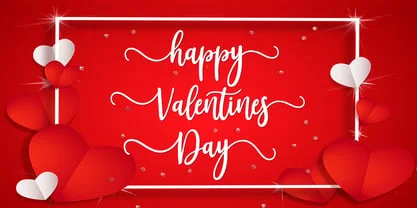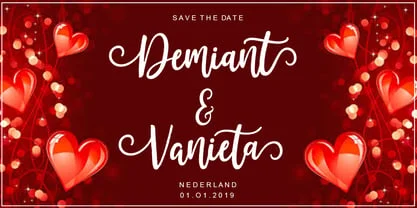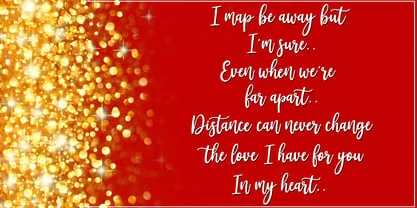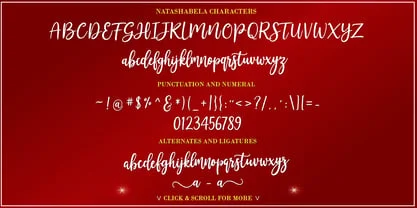
Natashabela Font
This elegant font is perfect for luxury wedding invitations, high-end fashion branding, sophisticated beauty campaigns, premium cosmetic packaging, upscale restaurant menus, elegant boutique signage, refined jewelry marketing, exclusive event announcements, luxury lifestyle publications, and distinguished corporate branding materials.
Natashabela Font is exciting because it embodies feminine sophistication and timeless elegance through its gracefully crafted letterforms that exude luxury and refinement. The font features beautifully balanced characters with flowing curves and delicate details that create an aura of exclusivity and high-end appeal. Each letter showcases subtle artistic flourishes and refined proportions that reflect the essence of European elegance and contemporary fashion sensibilities. The typeface's distinctive personality combines classical beauty with modern sophistication, making it perfect for brands and projects that require an air of prestige and feminine grace. Its versatile design works seamlessly across various luxury applications while maintaining consistent elegance and readability.
The Natashabela Font family includes sophisticated style variations: Regular, Bold, Light, Italic, and Condensed versions. The collection features special decorative elements including elegant swashes, ornamental flourishes, stylistic alternates, and refined ligatures. Additional components include luxury borders, decorative frames, sophisticated ornaments, and elegant accent marks that enhance the font's premium aesthetic and create cohesive high-end design systems.
Designers working on luxury projects will find Natashabela Font to be an invaluable asset for creating distinguished communications that convey prestige and sophistication. This meticulously crafted font transforms ordinary text into elegant statements that resonate with discerning audiences who appreciate refined typography and premium design aesthetics. The font's versatile nature makes it suitable for both intimate personal projects and large-scale luxury campaigns.
The typeface includes comprehensive international character support with extended punctuation sets for global luxury markets. Advanced typography features ensure smooth rendering and professional appearance across all media platforms, from printed luxury materials to high-resolution digital applications. The font maintains its elegant character at all sizes.
Perfect for luxury brands, high-end fashion houses, premium beauty companies, and sophisticated lifestyle businesses, this font delivers exceptional visual impact that communicates exclusivity, elegance, and refined taste to affluent target audiences seeking premium typography solutions.